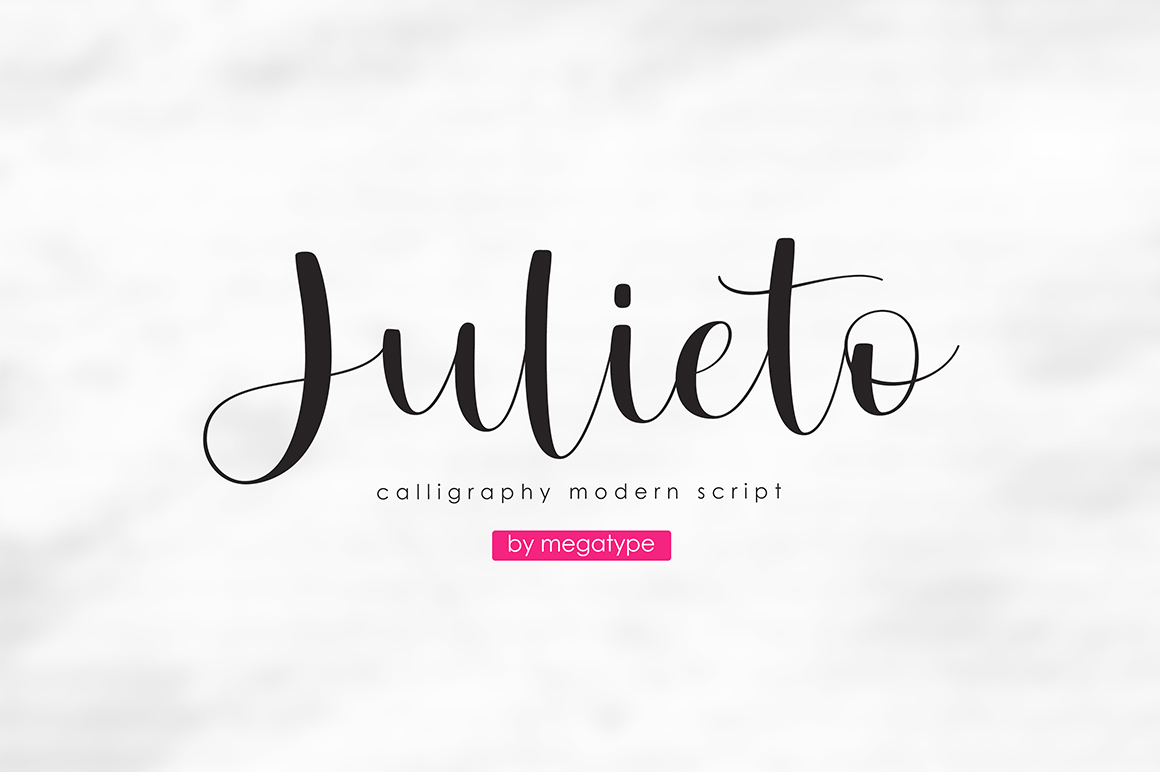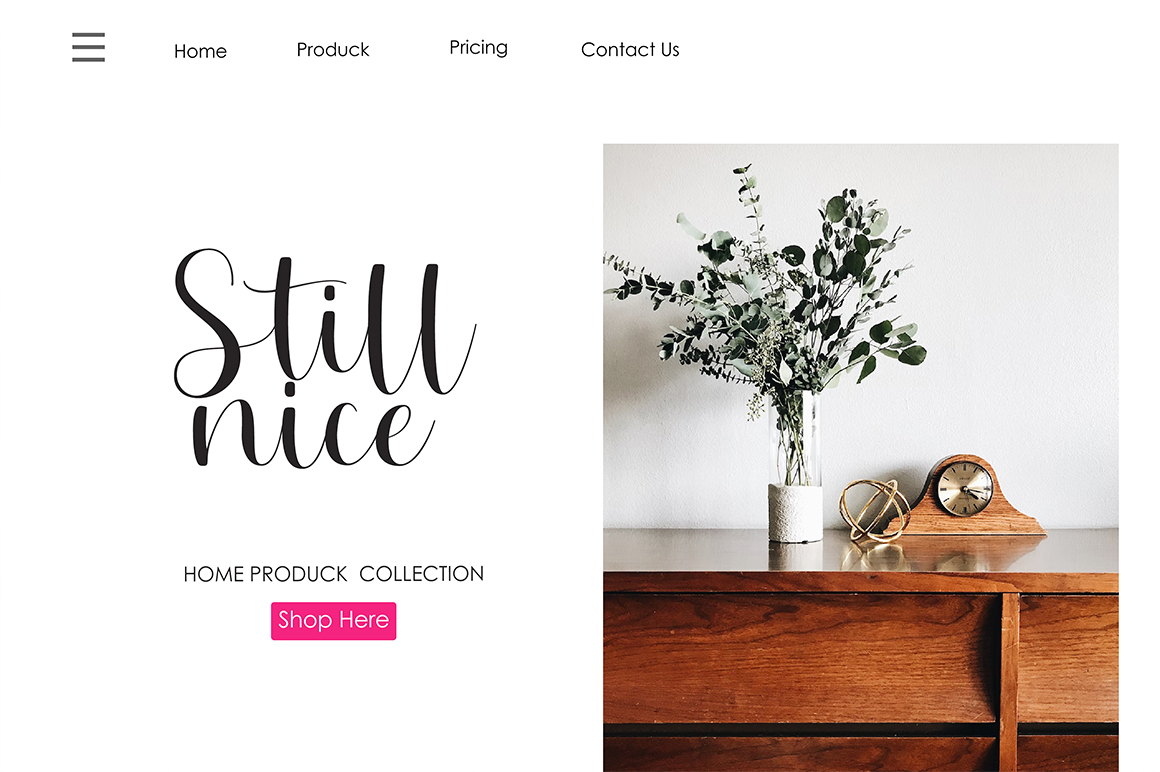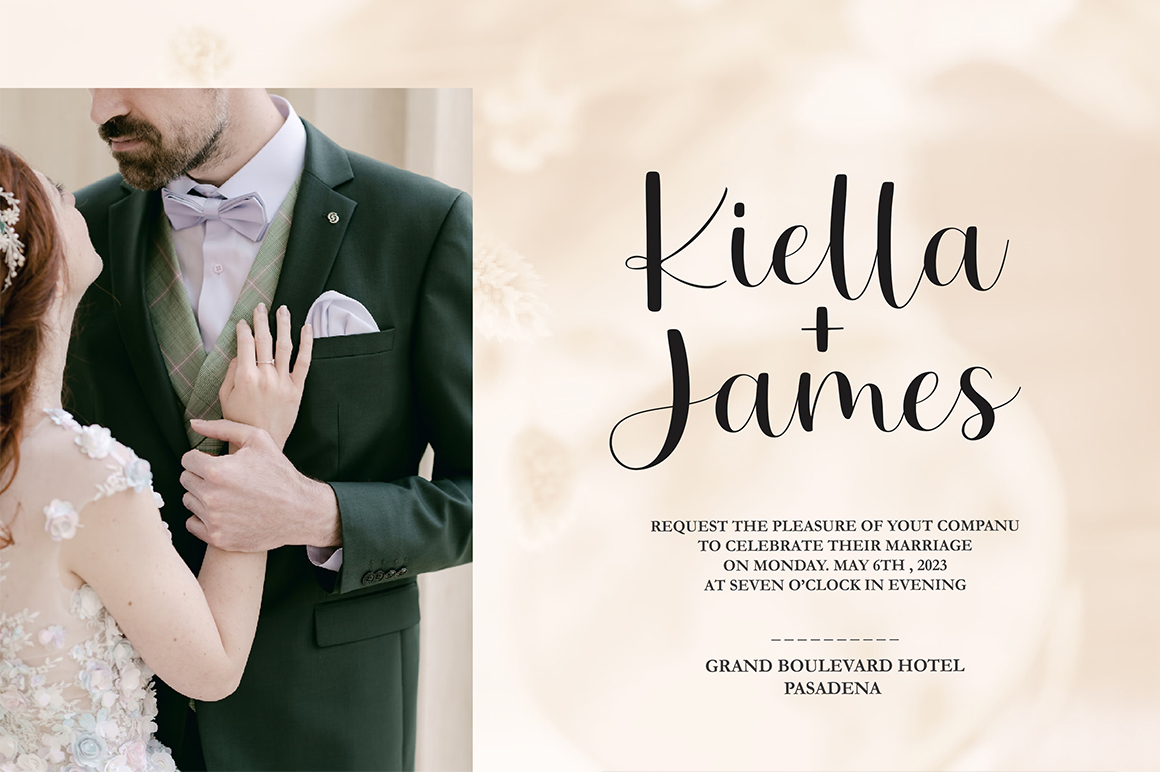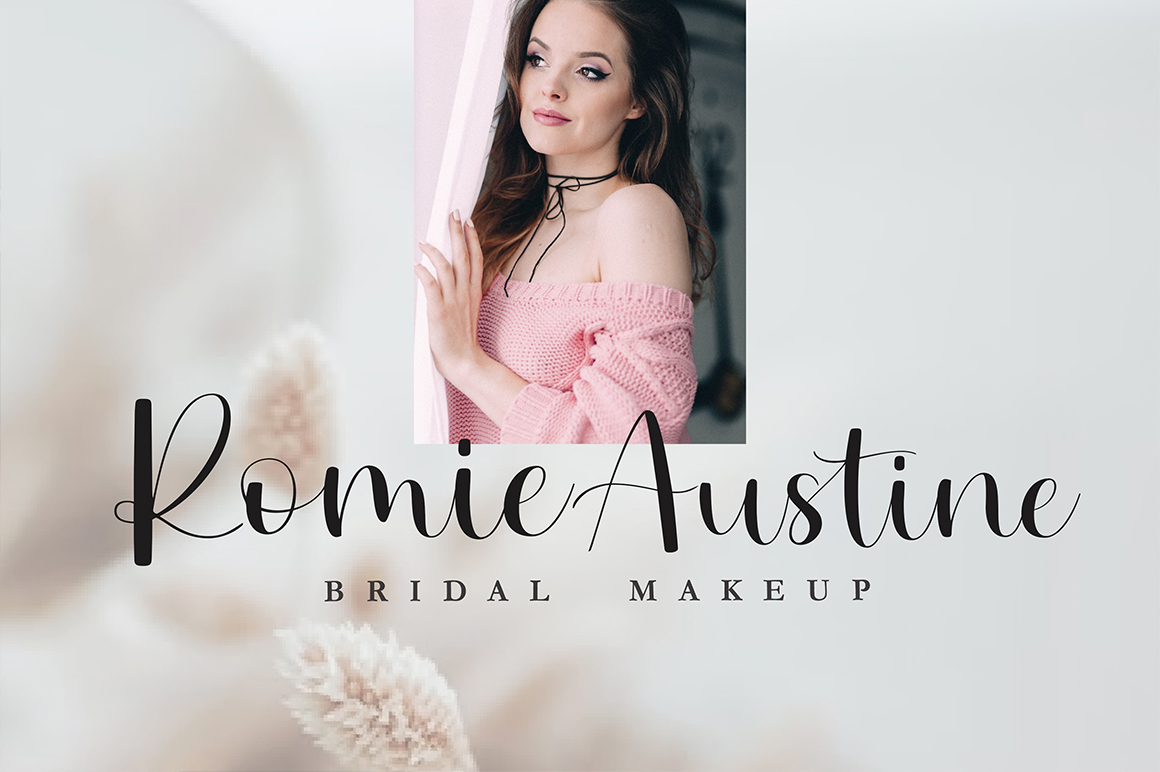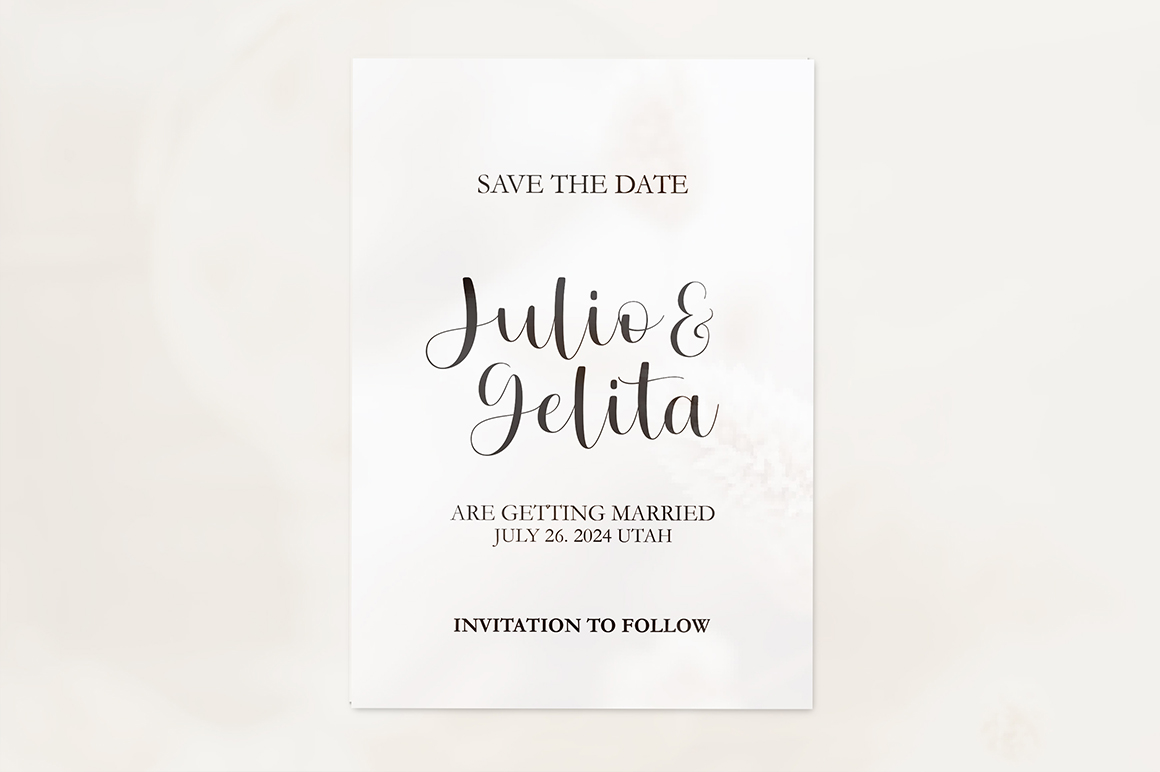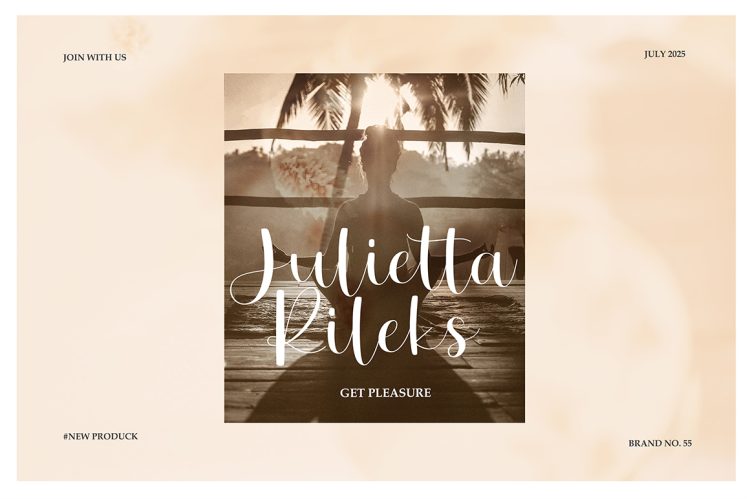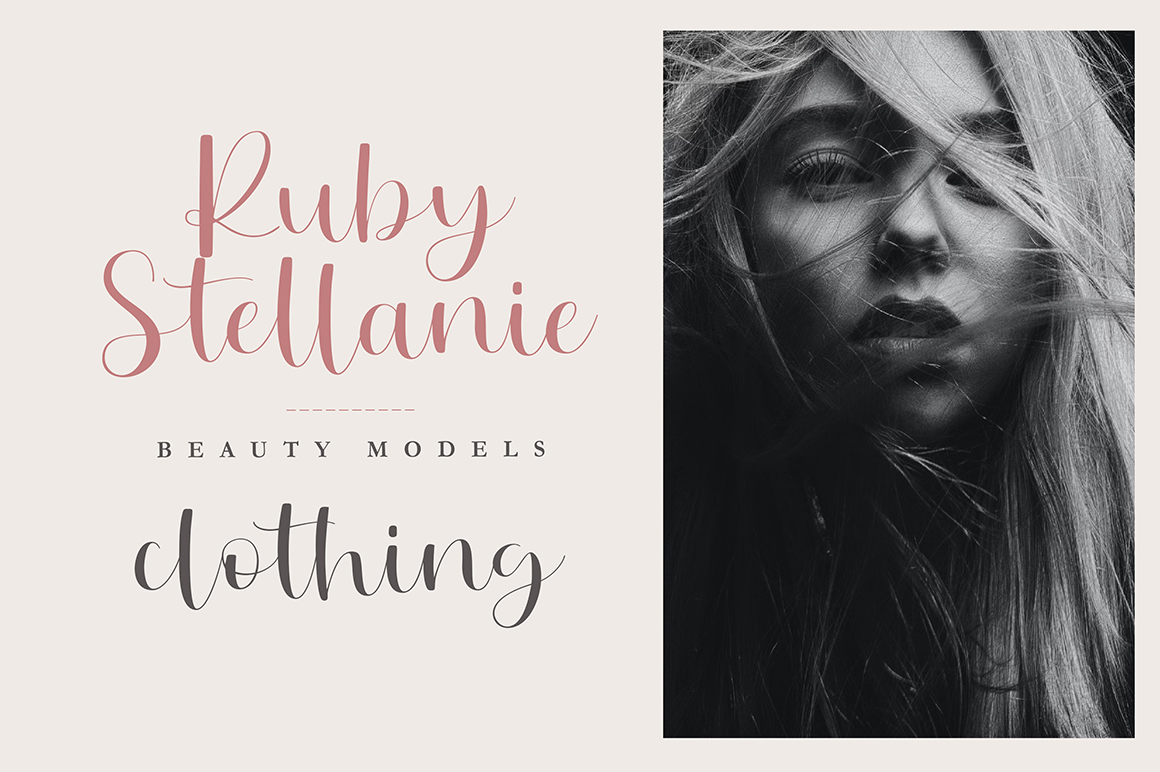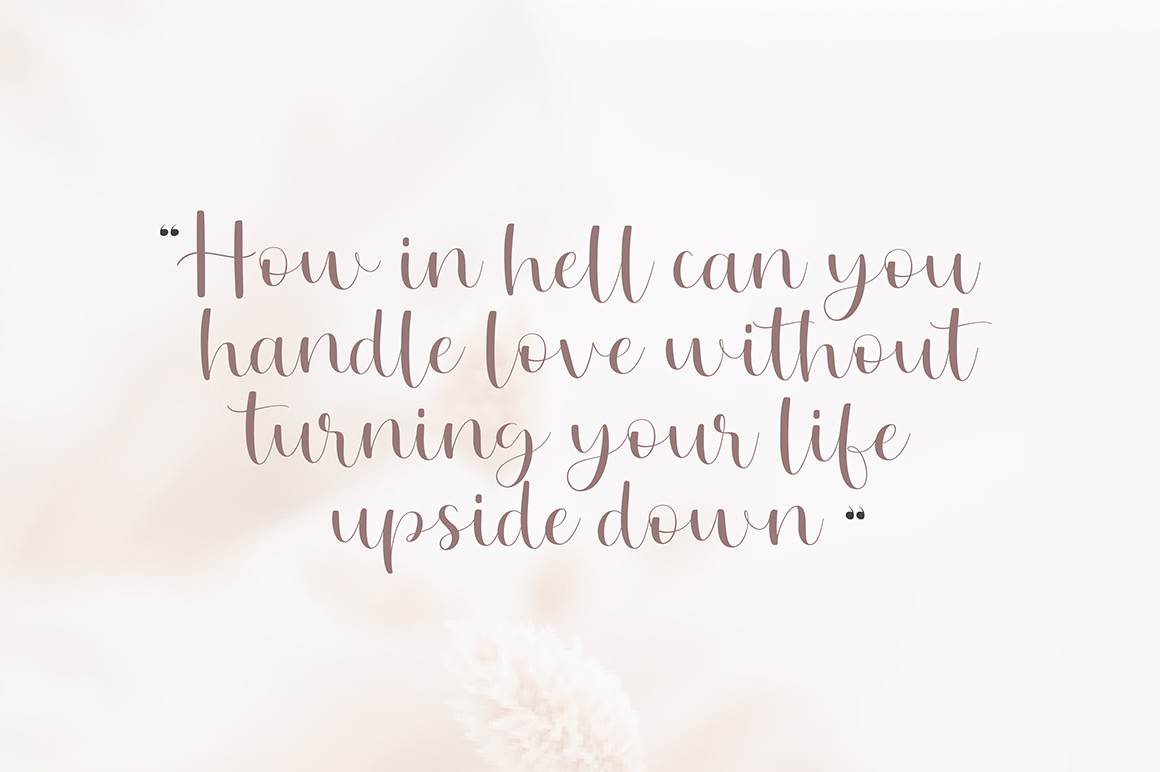
Introducing Julieto is a calligraphy modern script.
Julieto is a calligraphy modern script whose casual charm makes it very down-to-earth, graceful, easy to read, and ultimately very useful in all your designs. Julieto will look amazing in any context, whether it’s used for a romantic backdrop or on a busy backdrop or as a standalone title!
Julieto is a gorgeous modern calligraphy script font that’s perfect for branding, wedding invitations, home product, brand name, fashion catalog and other romantic projects.